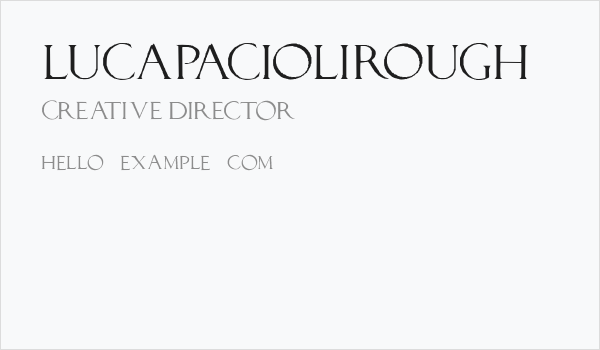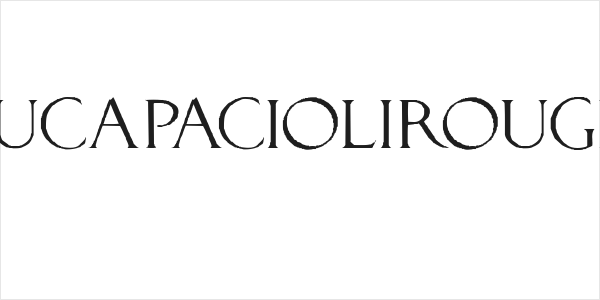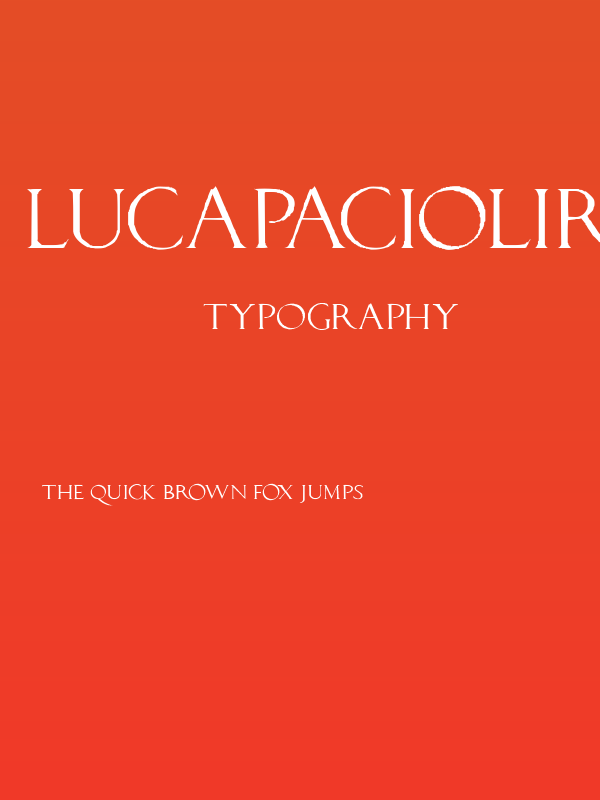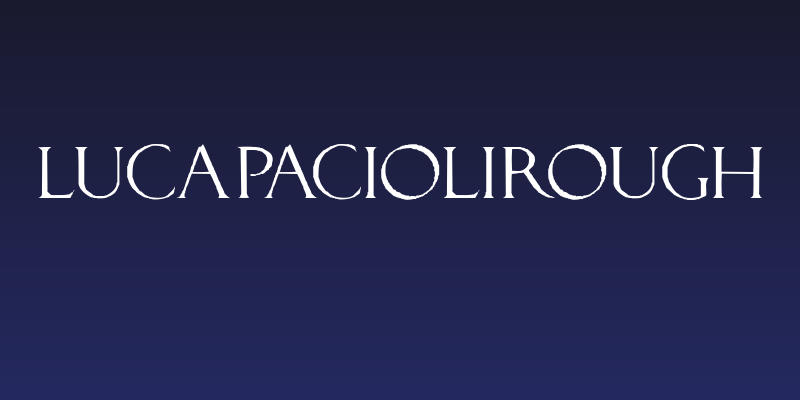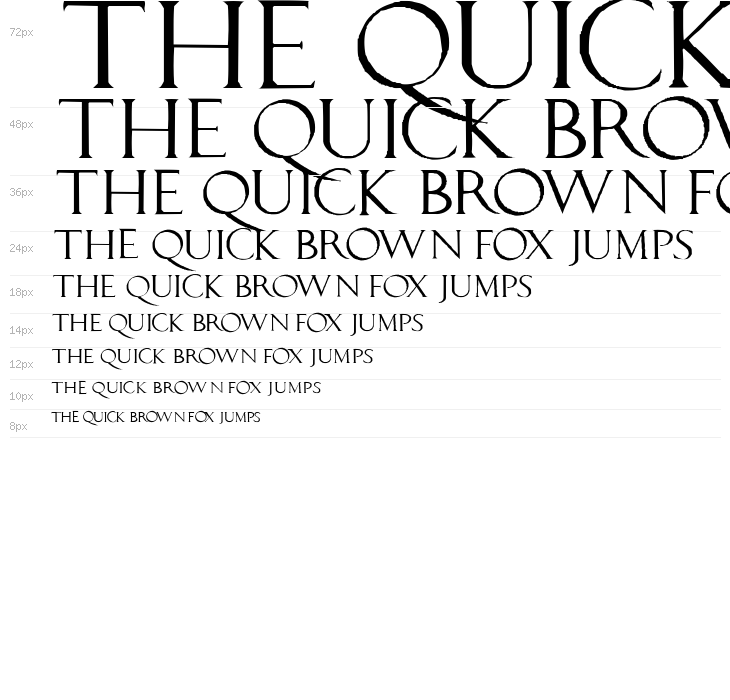
LucaPacioliRough Font
LucaPacioliRough Description
This font exhibits a classic and elegant serif style, characterized by its sharp, angular serifs and high contrast between thick and thin strokes. The uppercase letters are particularly striking, with a refined and sophisticated appearance that suggests a historical or traditional influence. The lowercase letters maintain this elegance, with a slightly more subdued presence. The overall design is reminiscent of Renaissance calligraphy, offering a timeless and formal aesthetic. The spacing between characters is balanced, providing a harmonious flow that enhances readability while maintaining a decorative flair.
| Use Case | Headlines, Logos, Formal documents |
| Proposed Projects | Ideal for formal invitations, historical documents, book covers, and branding that requires a touch of sophistication. |